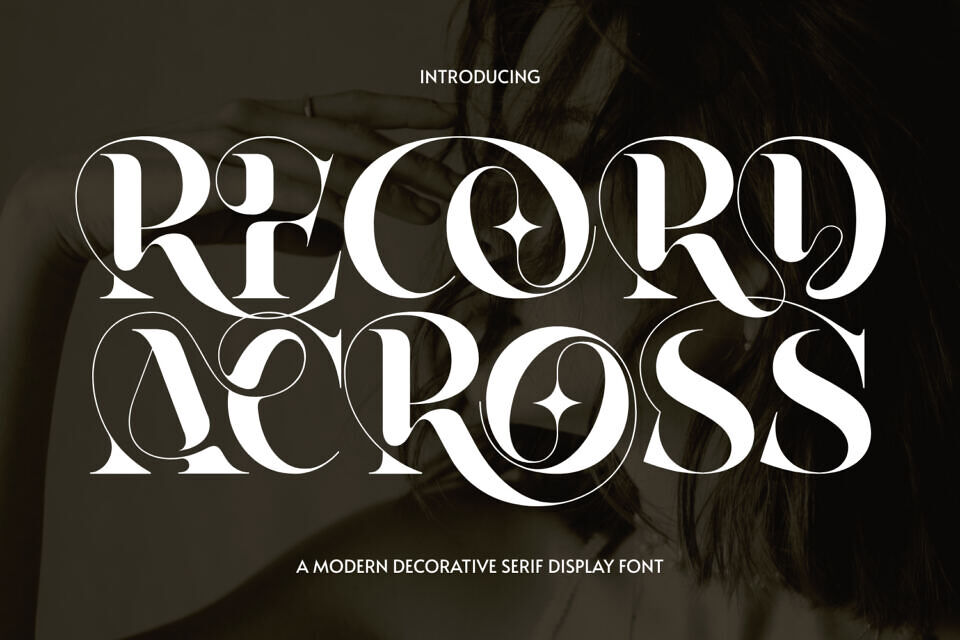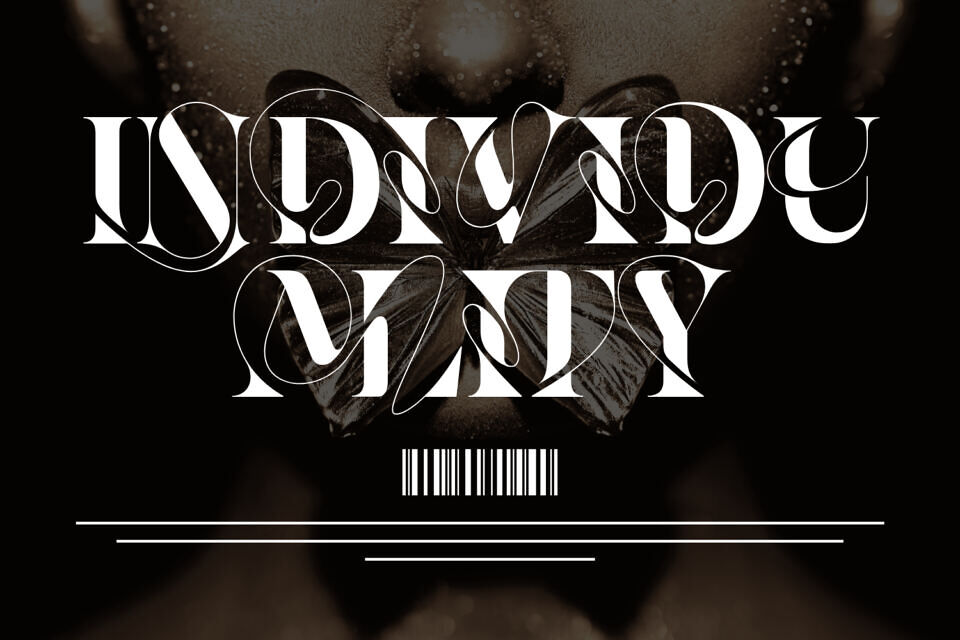
Record Across is a high-contrast decorative ligature serif display font that embodies elegance, drama, and ornamental sophistication. Each character is crafted with sharp contrasts, refined curves, and unique diamond-shaped counters that lend a luxurious and stylish appearance.
The font balances classical serif structures with avant-garde detailing, making it both timeless and contemporary. Perfect for branding, fashion campaigns, magazine headlines, wedding invitations, luxury packaging, and artistic posters, this typeface brings a sense of grandeur and exclusivity to any design project.